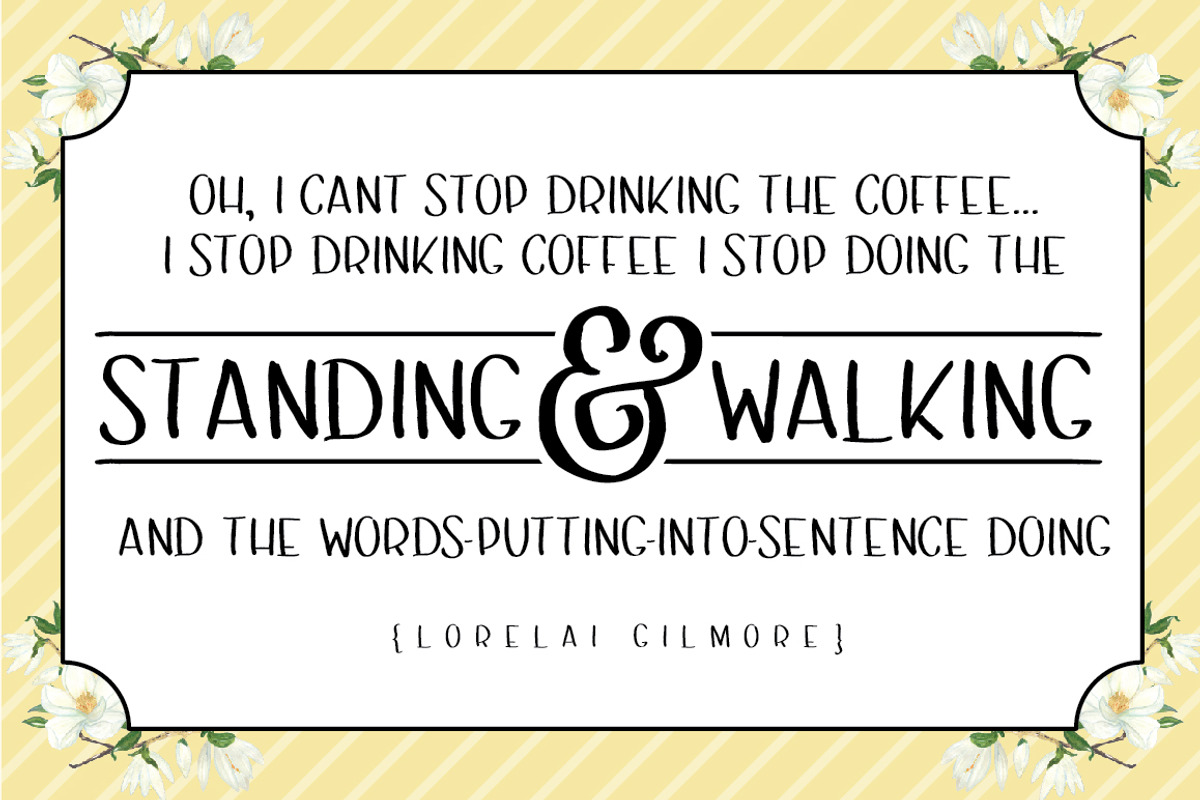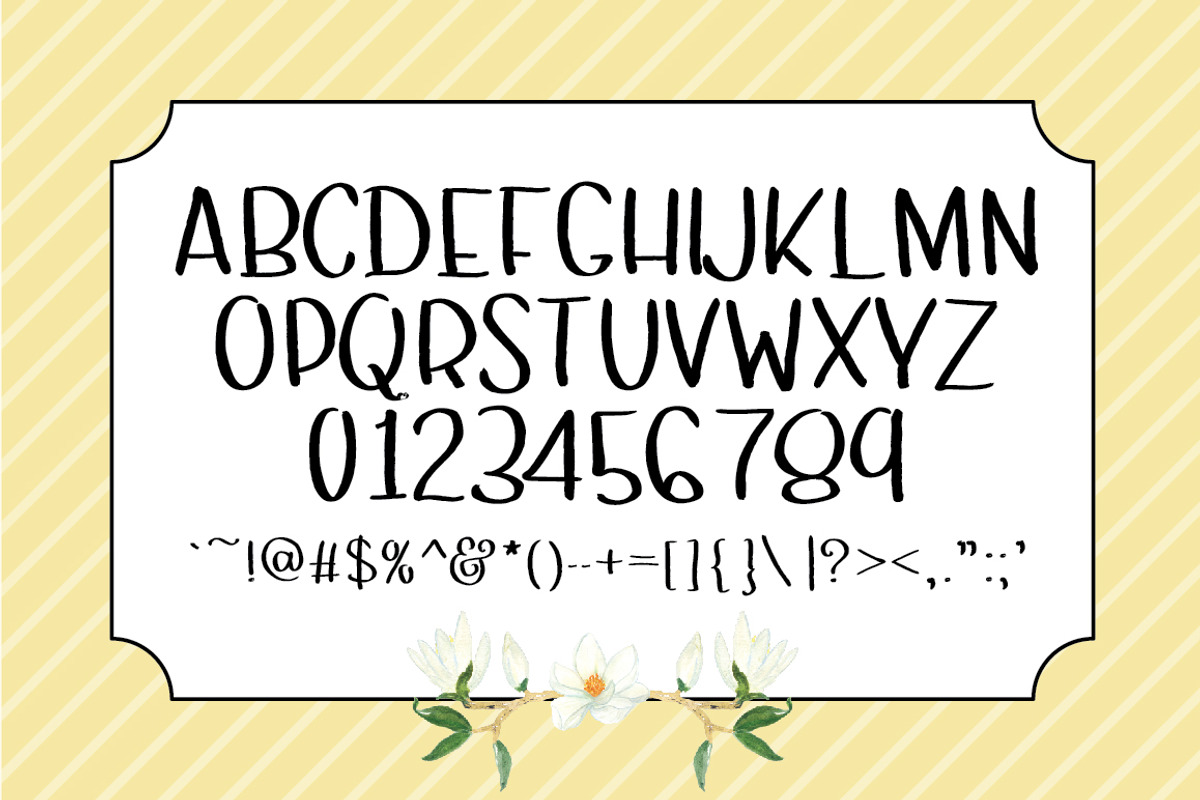
Sansy: A Sans Serif Font
Sansy: A Sans Serif Font by A/N Lettering & Design is a font selected for branding, posters, packaging, typography.
Why Sansy: A Sans Serif Font is worth a look
Sansy: A Sans Serif Font by A/N Lettering & Design fits naturally into Branding, posters, packaging, typography.